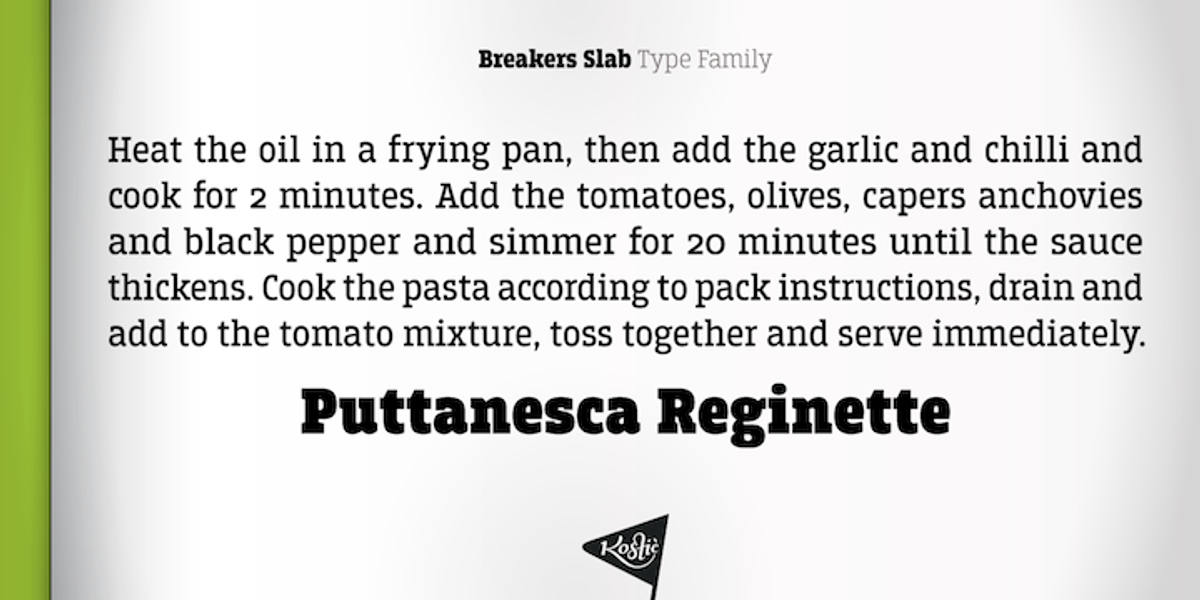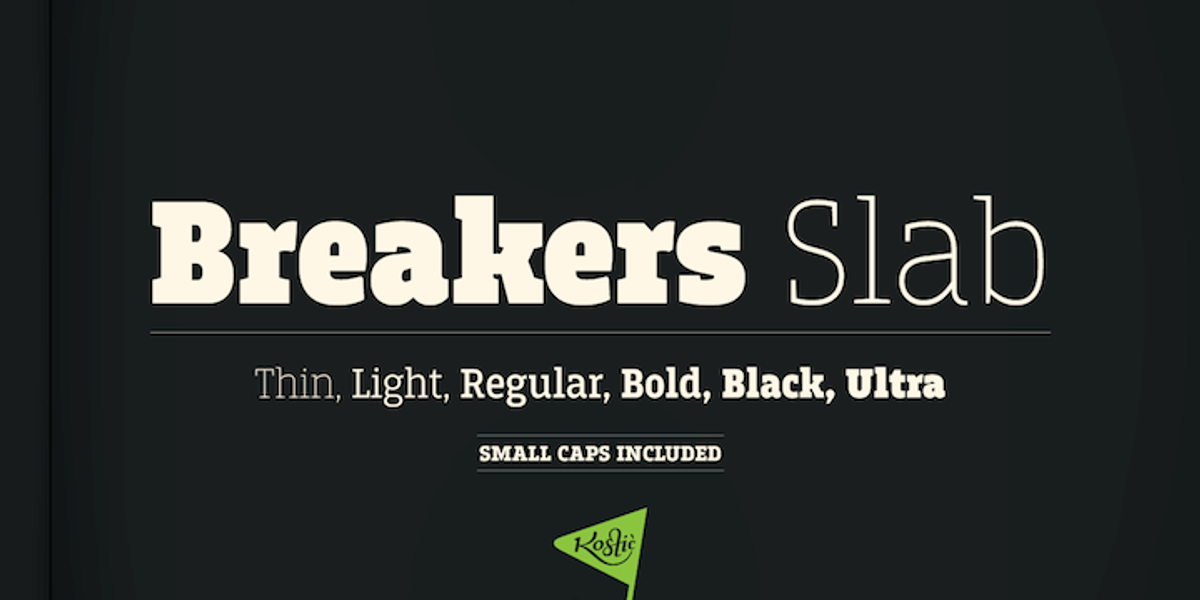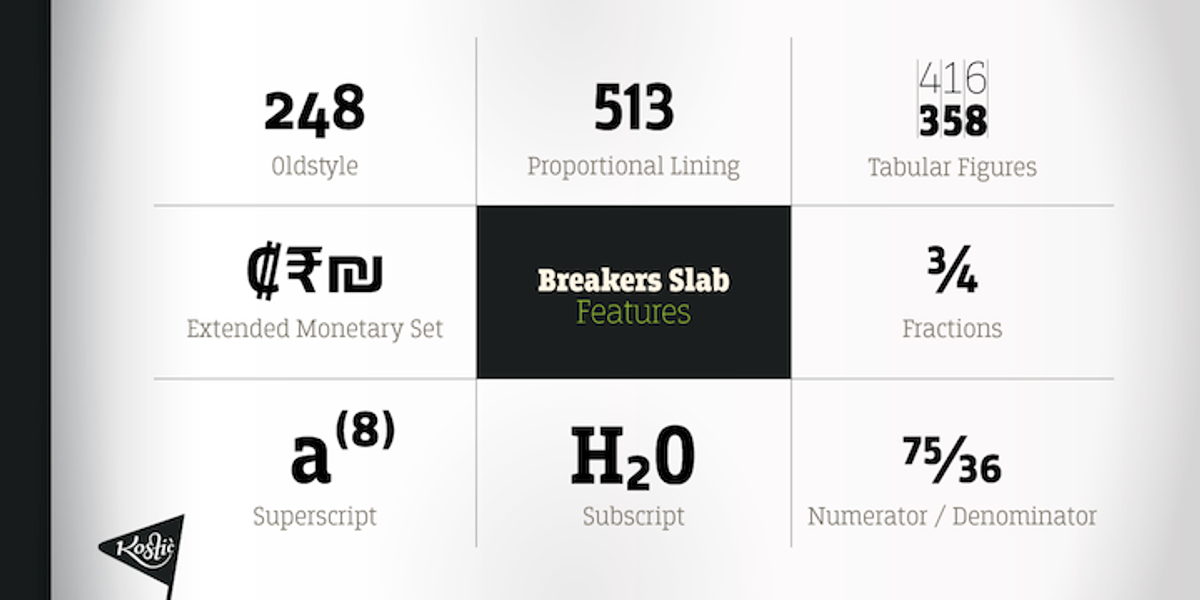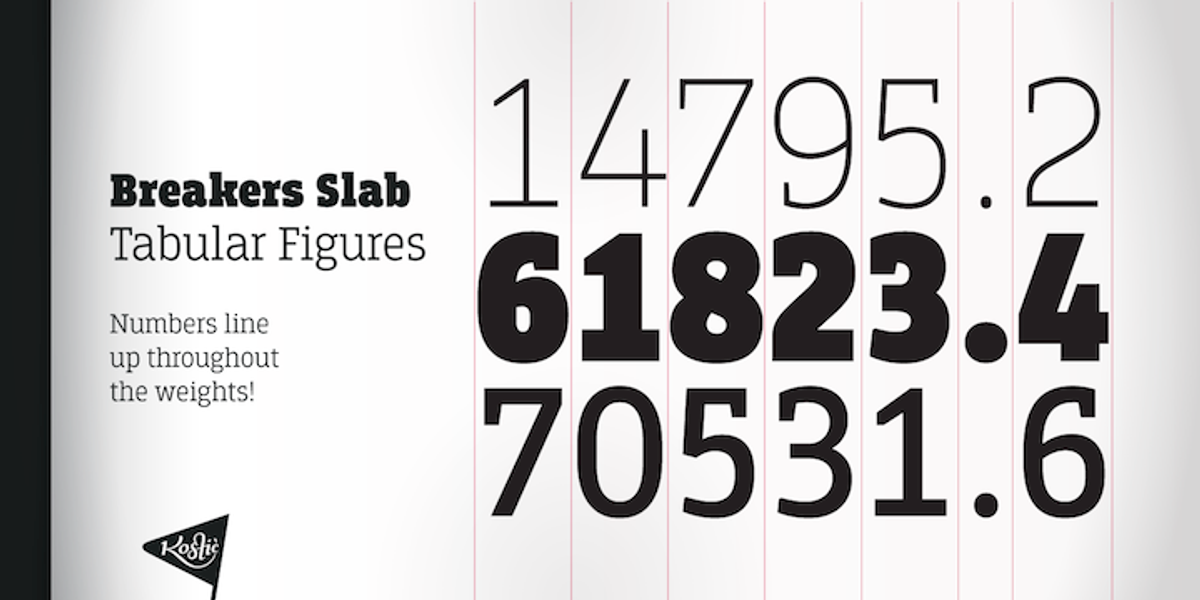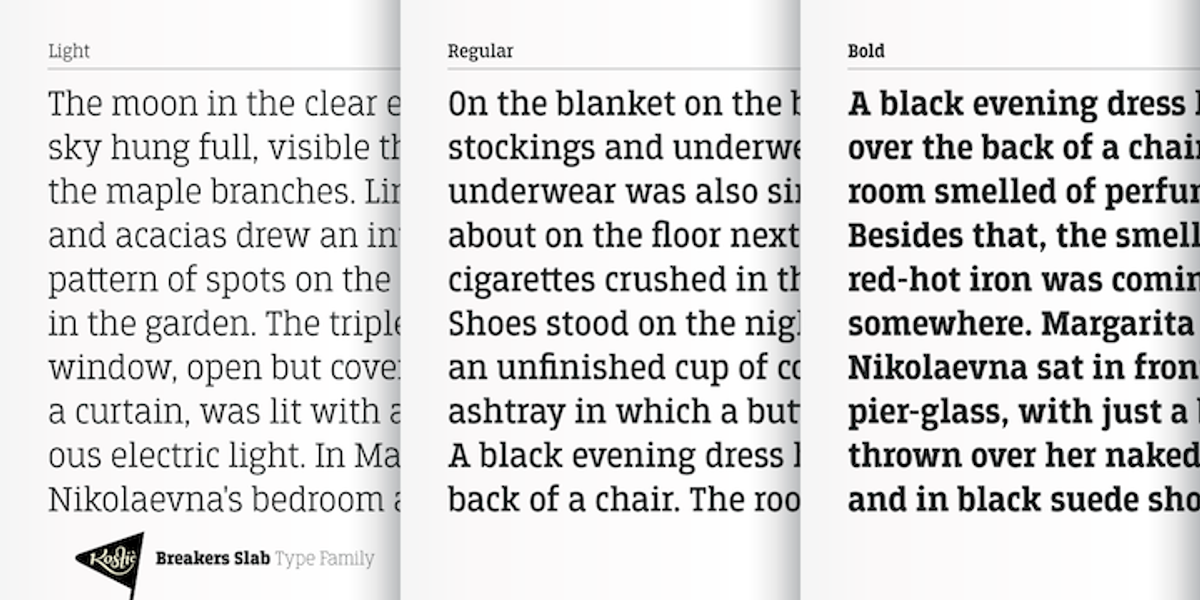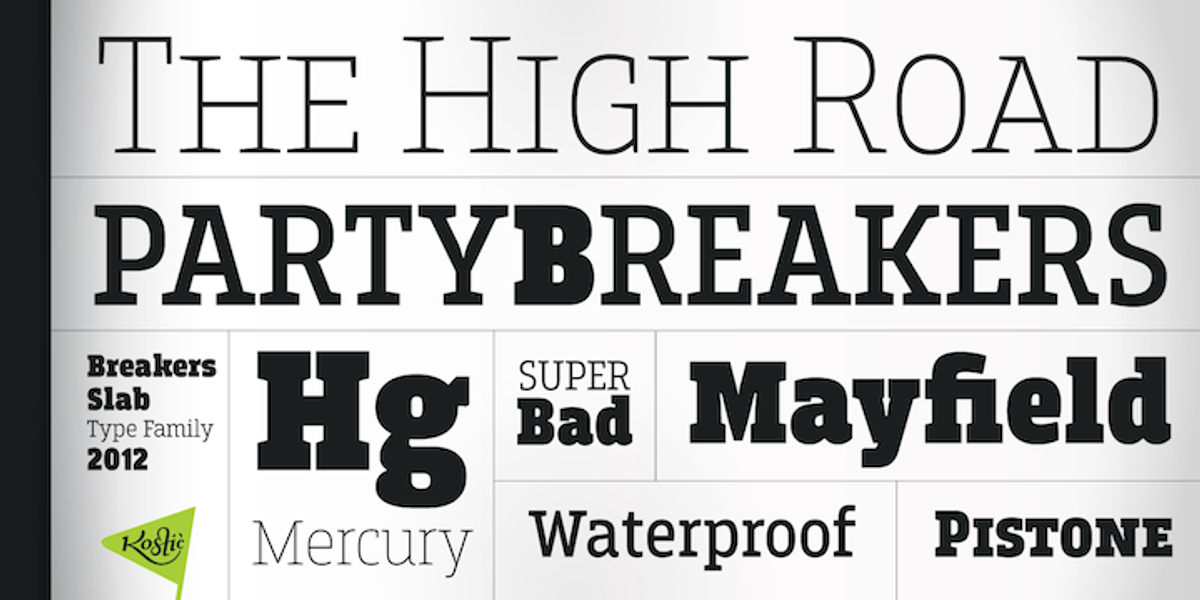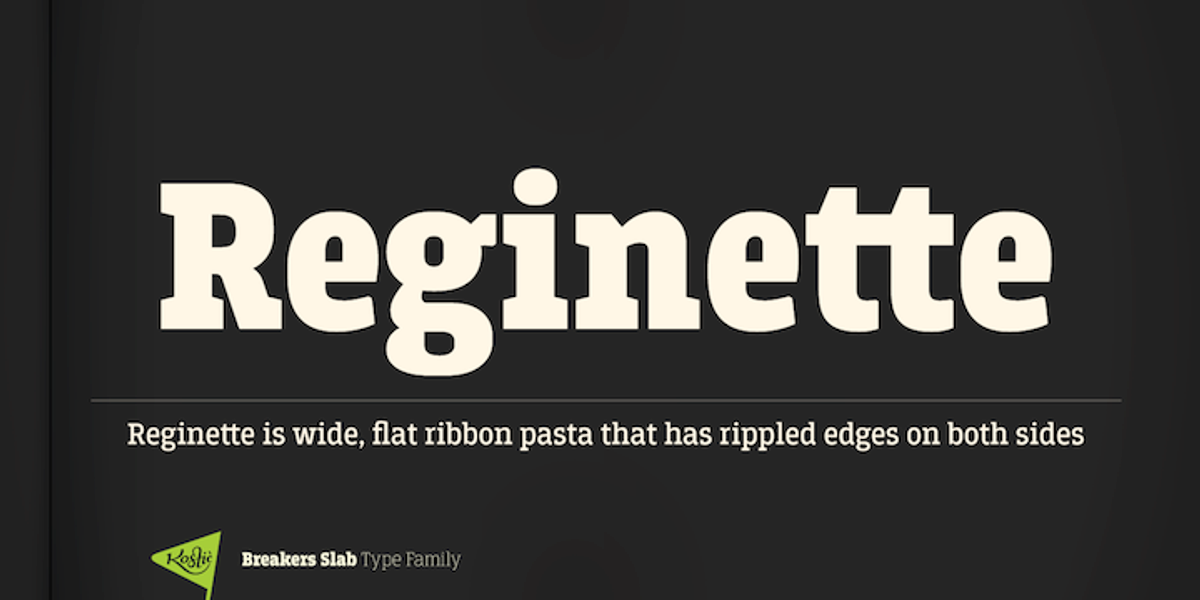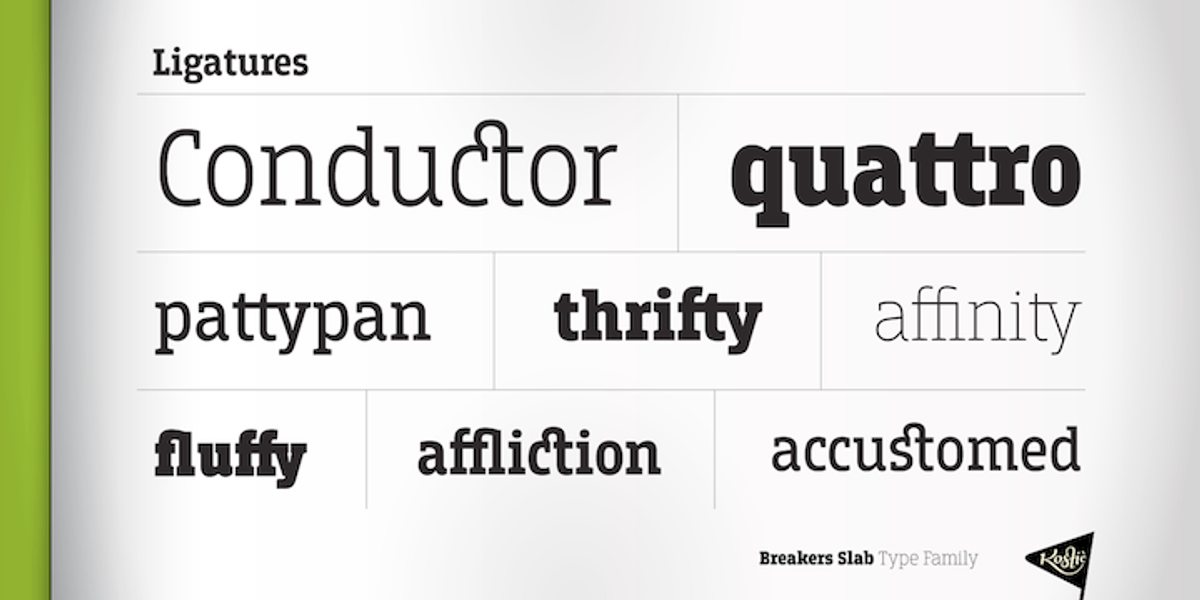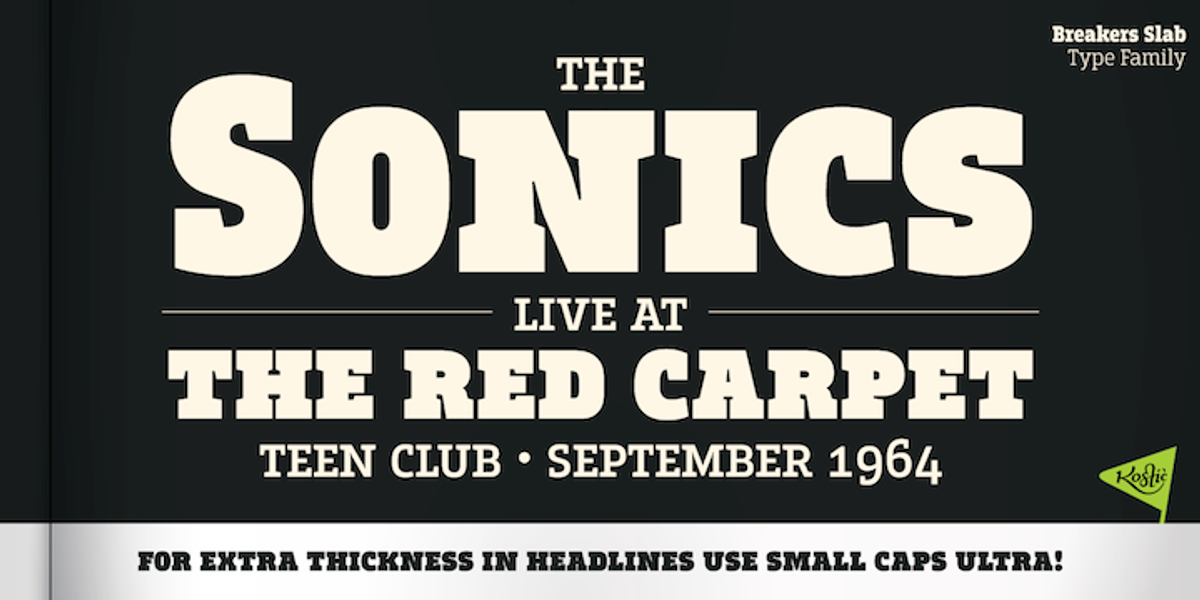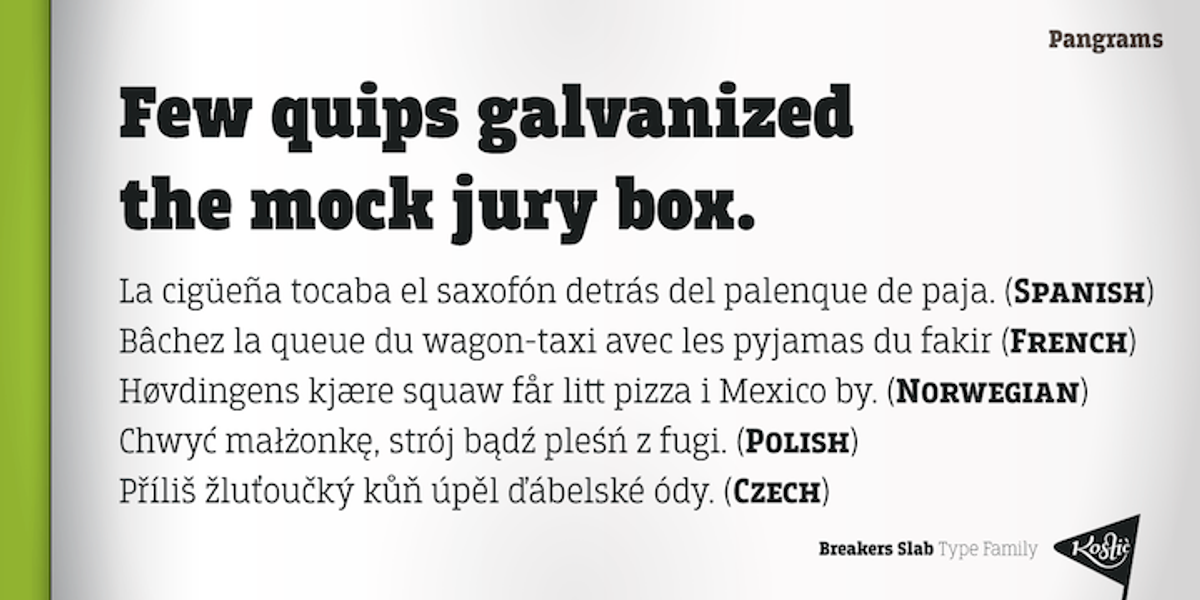
Breakers Slab
Breakers Slab is a versatile grotesque slab serif typeface designed for both headlines and text. It offers a range of weights from thin to ultra bold, ensuring legibility across various applications. The font includes small caps, ligatures, proportional lining and oldstyle numbers, tabular figures, fractions, and scientific superior/inferior figures. Breakers Slab supports Western and Central European languages and has an extended set for monetary symbols.